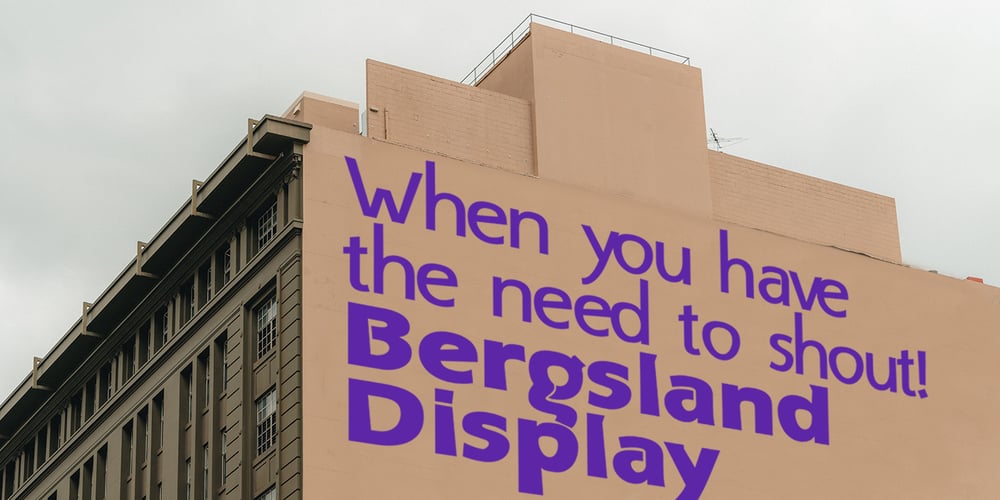
Bergsland Display
Bergsland Display font
Bergsland Display Font Family was designed by David Bergsland and published by Hackberry Font Foundry. Bergsland Display contains 4 styles and family package options. This is a display version of a stylized sans serif font family that is very high-waisted and sleek called Bergsland Fashion. This four-font set has a Regular and a Black plus the italics. The stroke is only slightly modulated. The letterforms are higher, with a more open aperture, and sprinkled with breaks to add light and sparkle. This an attempt at a readable sans serif for text. It has many OpenType features and 465 characters per font: Caps, lower case, small caps, old style figures, numerators, denominators, accents characters and so on.